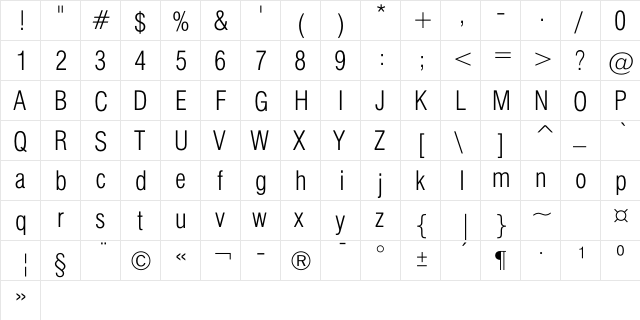
BPG Classic Medium Regular
Design Context for BPG Classic Medium Typeface
BPG Classic Medium wears its vintage influences proudly, with letterforms that recall mid-century signage, classic packaging, and nostalgia-driven design.
Ideal for diner signage, record shop branding, 70s/80s-themed projects, and heritage product labels.
Font Pairing: Combine BPG Classic Medium with a simple slab or neutral sans — period-accurate companions reinforce the vintage feel without competing for attention.
Pro Tip: Lean into BPG Classic Medium's period character by pairing it with aged paper textures, muted colour palettes, and vintage illustration styles.